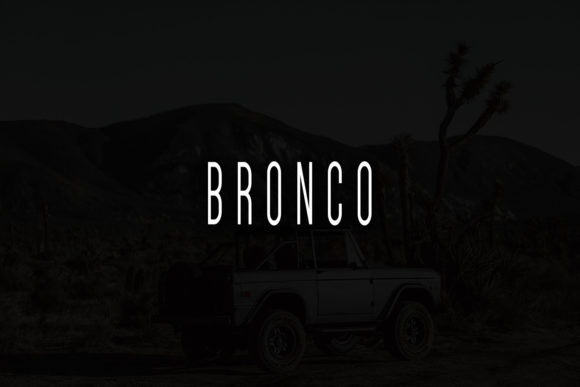
The Quest for the Perfect Font: Discovering Bronco
I’ll never forget the time I was working on a project for a client who wanted a modern, minimalist look. I had spent hours scouring the internet for the perfect font, but nothing seemed quite right. That was until I stumbled upon Bronco, a thin, modern sans serif font that instantly caught my eye. In this article, I’ll share my experience with Bronco, its features, and how to make the most of it in your designs.
A First Impression: What I Love About Bronco
So, what makes Bronco so special? Here are a few things that I love about this font:
- ✨ Clean and minimalist design: Bronco’s sleek lines and simple curves make it perfect for modern designs.
- ✅ High legibility: Even at small sizes, Bronco remains clear and easy to read.
- 💡 Versatility: From web designs to business cards, Bronco can be used for a wide range of projects.
An Honest Review: The Not-Perfect-but-Almost Section
No font is perfect, and Bronco is no exception. Here are a few quirks to keep in mind:
- 🤔 Limited glyphs: While Bronco has a decent range of characters, it may not have everything you need for more complex designs.
- ⚠️ Not ideal for body text: Due to its thin lines, Bronco may not be the best choice for longer blocks of text.
Bronco’s Backstory: Designer Inspiration
While the origins of Bronco are shrouded in mystery, it’s clear that its designer was inspired by modernist principles and a desire for simplicity. The result is a font that’s both elegant and versatile.
| Is Bronco suitable for body text? | No, due to its thin lines, Bronco is best used for headings and titles. |
| Does Bronco have a bold weight? | Bronco is a thin font, but you may be able to find bold alternatives or pair it with a bold font. |
Overall, Bronco is a versatile and elegant font that’s perfect for designers, crafters, and creative hobbyists looking to add a touch of modernity to their projects.